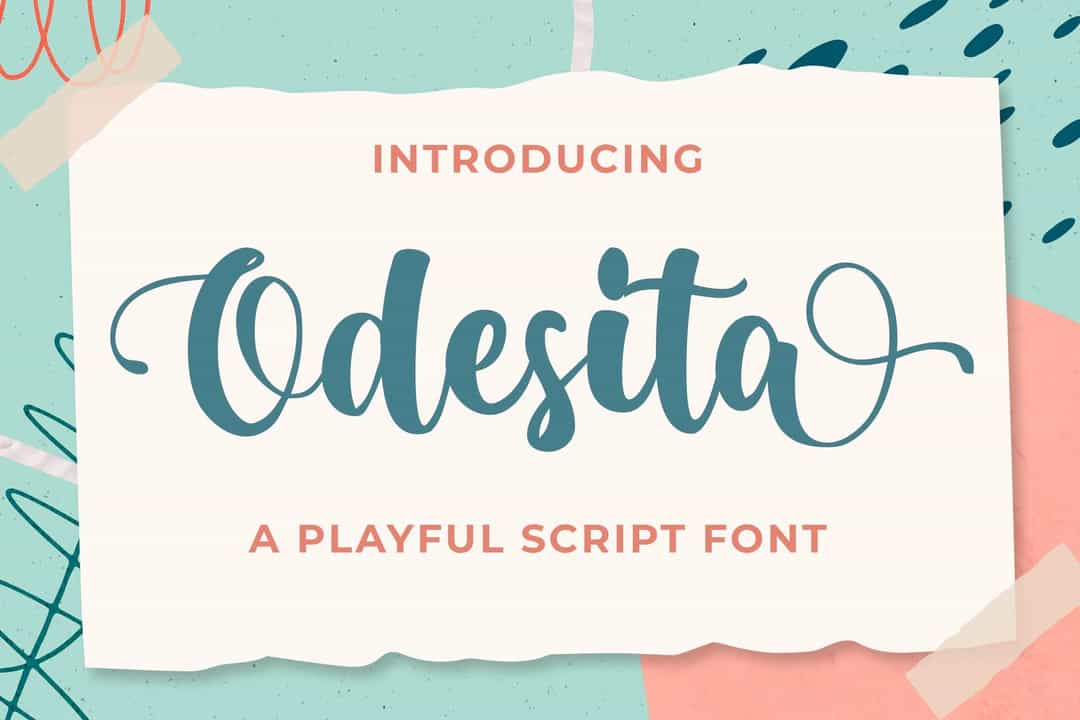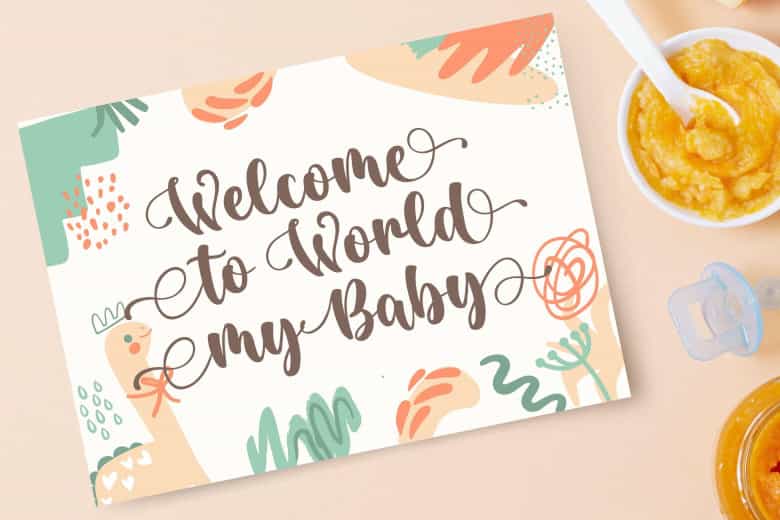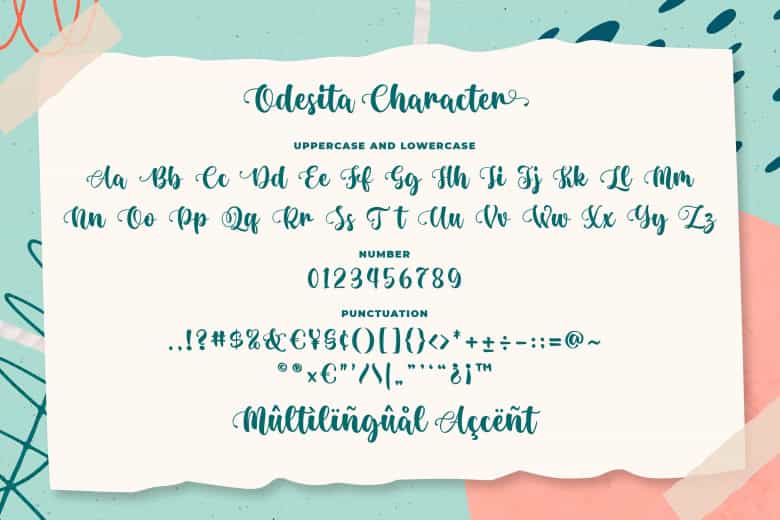
Odesita Calligraphy Font is our brand new offering, inspired by lively calligraphy styles, it makes this font enjoyable to use and great as display font, T-shirt design crafting, quote sign logotype etc.